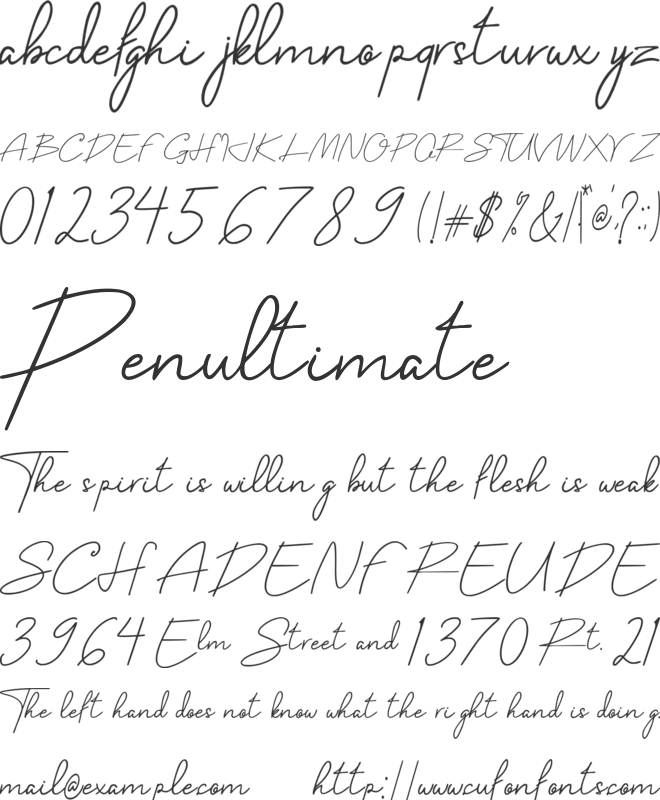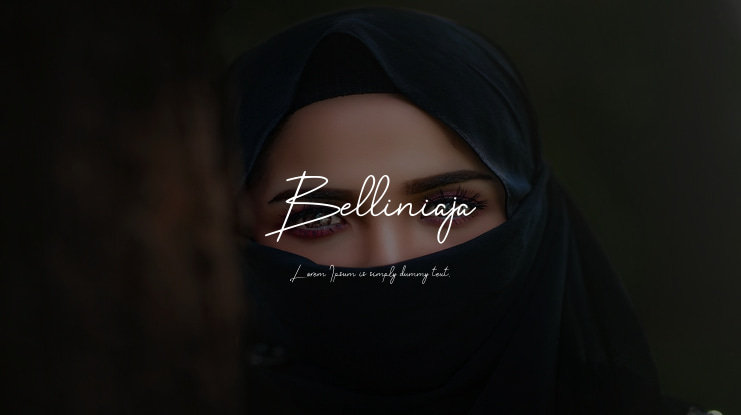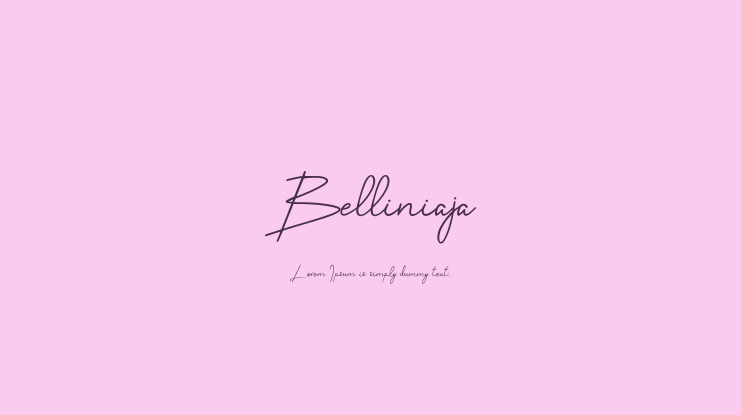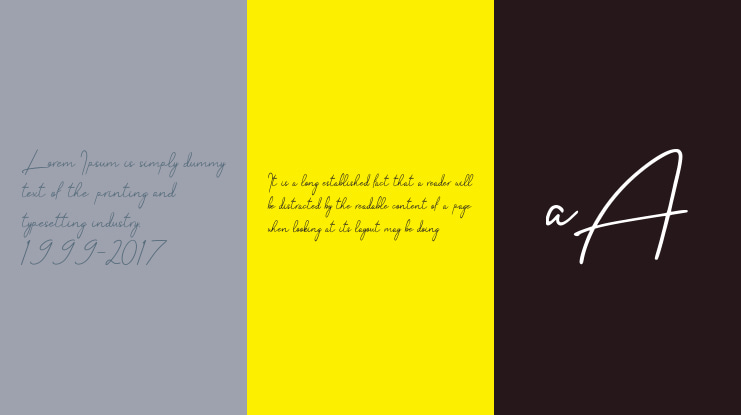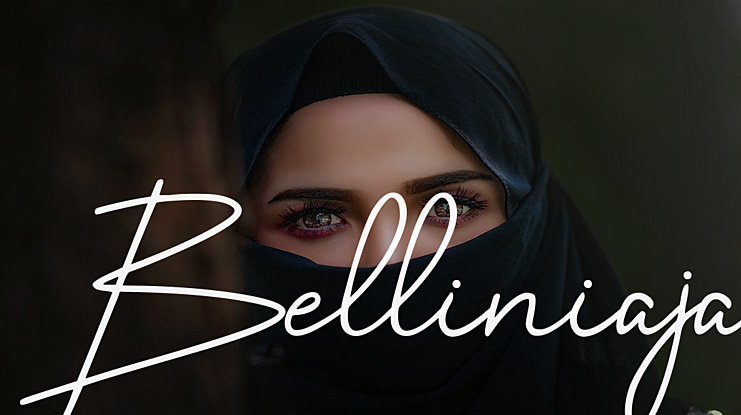
Belliniaja Font
Belliniaja is simply Handwritting font, ENGLISH : This font is PERSONAL USE only. If you want to use this font for COMMERCIAL, You need a commercial license that can be purchased here: